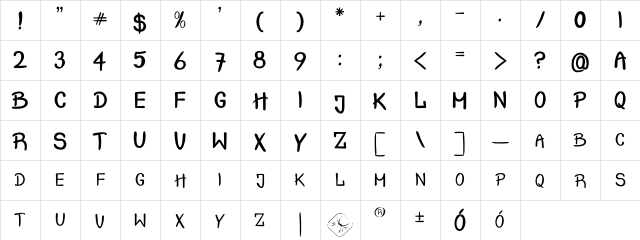
Crash Test is a composed and adaptable typeface that performs quietly and consistently across a wide range of design contexts.
Pro Tip: Use Crash Test in both headline and body roles to test its range before committing to a single application.